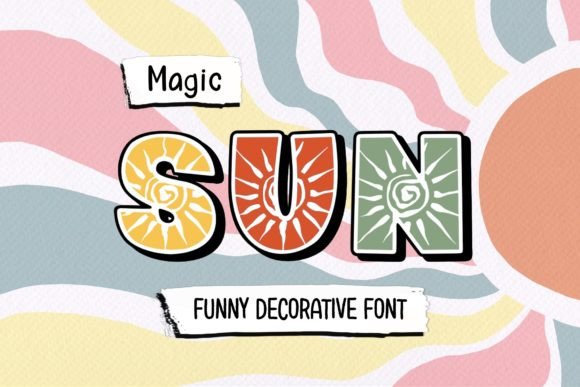
In a world where creativity knows no bounds, Magic Sun Font emerges as a radiant beacon of inspiration. This decorative font, meticulously designed by 18CC FONTs, captivates with its ebullient spirit and luminous charm. Meet your new font partner, specially created for those seeking a stamp of originality in their designs.
Magic Sun Font isn't just a font; it's a burst of sunshine that illuminates your designs. With its sun-infused letterforms, this font brings a touch of warmth and joy to every project. Imagine your words dancing across the page, each letter a tiny sunbeam, casting its golden glow upon your creative endeavors.
Designed with passion and an eye for detail, Magic Sun Font is a visual masterpiece. Intricate sun streaks playfully intertwine within the letterforms, adding a layer of depth and dimension that is simply mesmerizing. Unleash your imagination and let your designs bask in the radiant glow of this extraordinary font.
But Magic Sun Font is more than just a pretty face; it's a versatile chameleon that adapts seamlessly to a myriad of creative projects. Whether you're crafting eye-catching social media posts, designing bespoke stationery, or adding a personal touch to your DIY endeavors, this font rises to the occasion with effortless grace.
See your designs transformed into works of art as Magic Sun Font weaves its magical spell. Your social media feeds will radiate with newfound energy, your crafty projects will exude a unique charm, and your personal brand will shine with newfound brilliance.
Don't let dull, ordinary typography hold you back from expressing your true creative potential. Embrace the Magic Sun Font and awaken the dormant brilliance within your designs. Let your imagination soar, let your creativity flourish, and let Magic Sun Font guide you towards a world of visual enchantment.